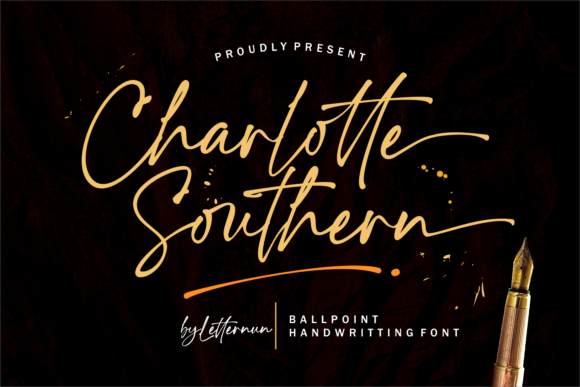
Introducing Charlotte Southern Font, the perfect script font for your wedding envelopes and more! Created by the talented Nun Creatype, this spectacular handwritten font is sure to captivate your audience with its unique charm and versatility.
Charlotte Southern is not your ordinary script font. It adds a touch of quirkiness to any design, making it stand out from the crowd. Whether you're designing wedding invitations, greeting cards, or branding materials, this font will bring a delightful and personal touch to your projects.
What sets Charlotte Southern apart is its incredible adaptability. It seamlessly blends into a wide range of contexts, making it suitable for various themes and styles. Whether you're going for a vintage, rustic, or modern look, this font effortlessly complements your vision.
But what truly makes Charlotte Southern Font exceptional is its PUA encoding. With this feature, you can easily access all of the beautiful glyphs and swashes that come with the font. Add elegant flourishes and decorative elements to your designs effortlessly, elevating them to a whole new level.
Imagine the joy of your guests when they receive stunning wedding envelopes adorned with the exquisite Charlotte Southern Font. This font evokes emotions of love, romance, and elegance, setting the perfect tone for your special day.
Not only is Charlotte Southern Font visually captivating, but it also carries a sense of nostalgia and authenticity. It adds a personal touch to your designs, making them truly one-of-a-kind. Your audience will be captivated by the handwritten feel, as if each word was carefully crafted just for them.
Incorporating Charlotte Southern Font into your projects is an opportunity to create something extraordinary. Its versatility, charm, and access to unique glyphs and swashes make it a must-have for any designer or creative individual.